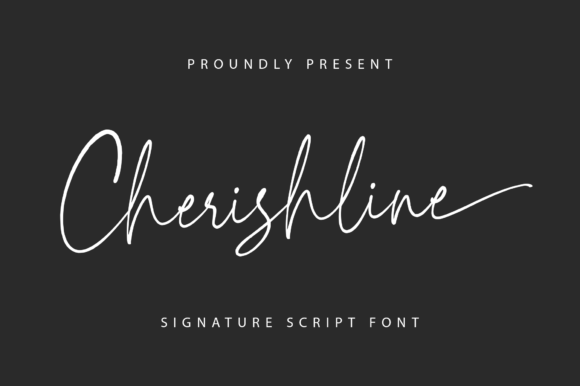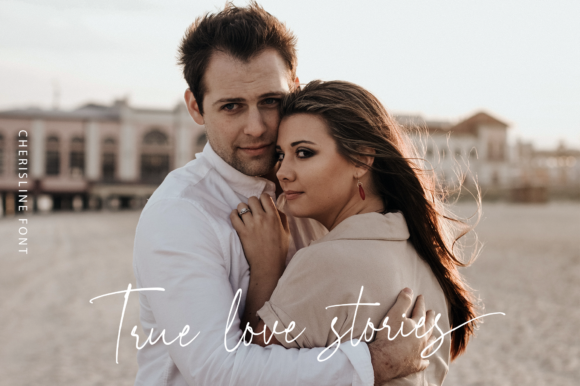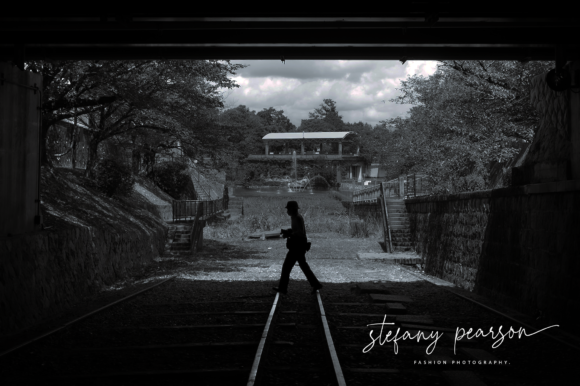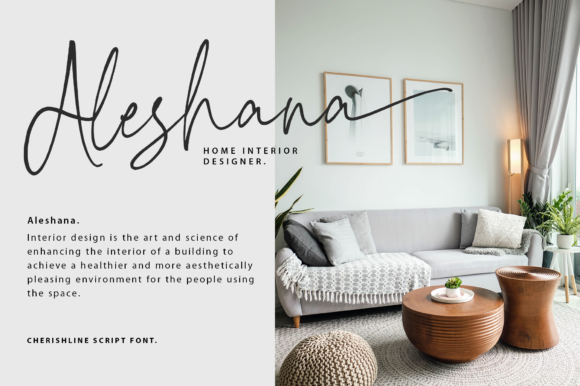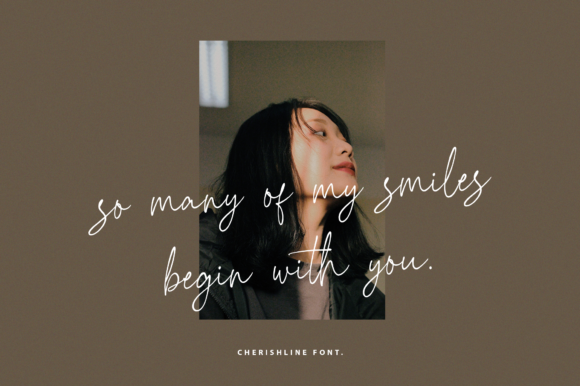
Cherishline Script Font
About Cherishline Script Font
Cherishline Script is a thin lettered and graceful script font. Fall for its ravishing style and use it to create gorgeous wedding invitations, beautiful stationary art, eye-catching social media posts, and much more! Cherishline Script is PUA encoded which means you can access all glyphs and swashes with ease!